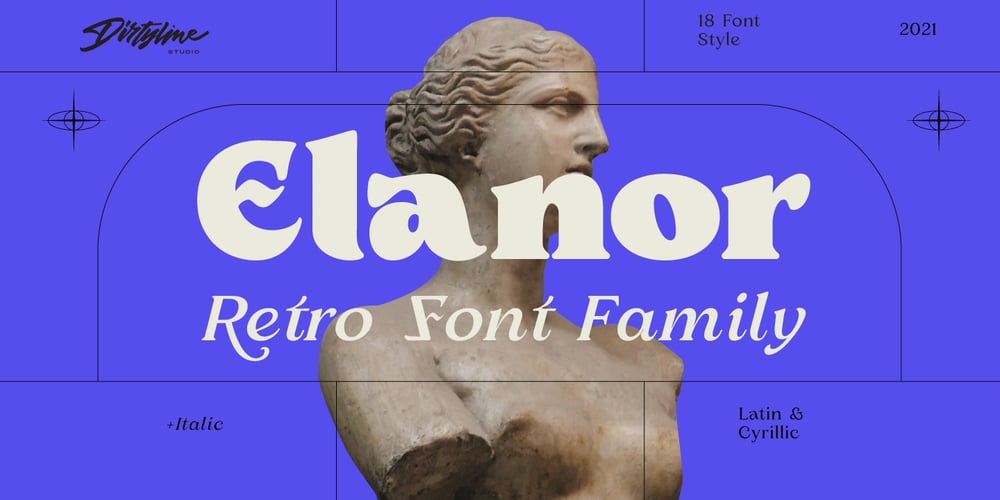
Elanor
Elanor font
Elanor Font Family was designed by Aulia Rahman, Hendra Maulia and published by Dirtyline Studio. Elanor contains 21 styles and family package options. Elanor is a serif typeface inspired by Retro ’70s fonts mixed with Experimental touches. Its main features are a diagonal stress and soft curved teardrop shape terminals. It has ligatures that make it more elegant and grotesque elements that give it a modern look and make it more versatile.This typeface both impressive at display sizes and easily readable in text size, while the sharp shapes of the triangular serifs and the distinctive letter shapes show their strength in logo design and impressive editorial use.Elanor come with elegant style, Retro and contrasts, with features an extended latin character set of 555 glyphs covering over 94 languages, Latin & Cyrillic. Elanor is ready to making your projects looking classic but contemporary, finely tuned but assertive, and elegant as the best retro design.94 languages :Afrikaans, Albanian, Asu, Basque, Belarusian, Bemba, Bena, Bosnian, Bulgarian, Catalan, Chiga, Colognian, Cornish, Croatian, Czech, Danish, Embu, English, Esperanto, Estonian, Filipino, Finnish, French, Friulian, Galician, German, Gusii, Hungarian, Indonesian, Irish, Italian, Kabuverdianu, Kalaallisut, Kalenjin, Kamba, Kikuyu, Kinyarwanda, Latvian, Lithuanian, Low German, Lower Sorbian, Luo, Luxembourgish, Luyia, Macedonian, Machame, Makhuwa-Meetto, Makonde, Malagasy, Malay, Maltese, Manx, Meru, Morisyen, North Ndebele, Norwegian Bokmål, Norwegian Nynorsk, Nyankole, Oromo, Polish, Portuguese, Romanian, Romansh, Rombo, Rundi, Russian, Rwa, Samburu, Sango, Sangu, Scottish Gaelic, Sena, Serbian, Shambala, Shona, Slovak, Slovenian, Soga, Somali, Spanish, Swahili, Swedish, Swiss German, Taita, Teso, Turkmen, Upper Sorbian, Vunjo, Walser, Zulu